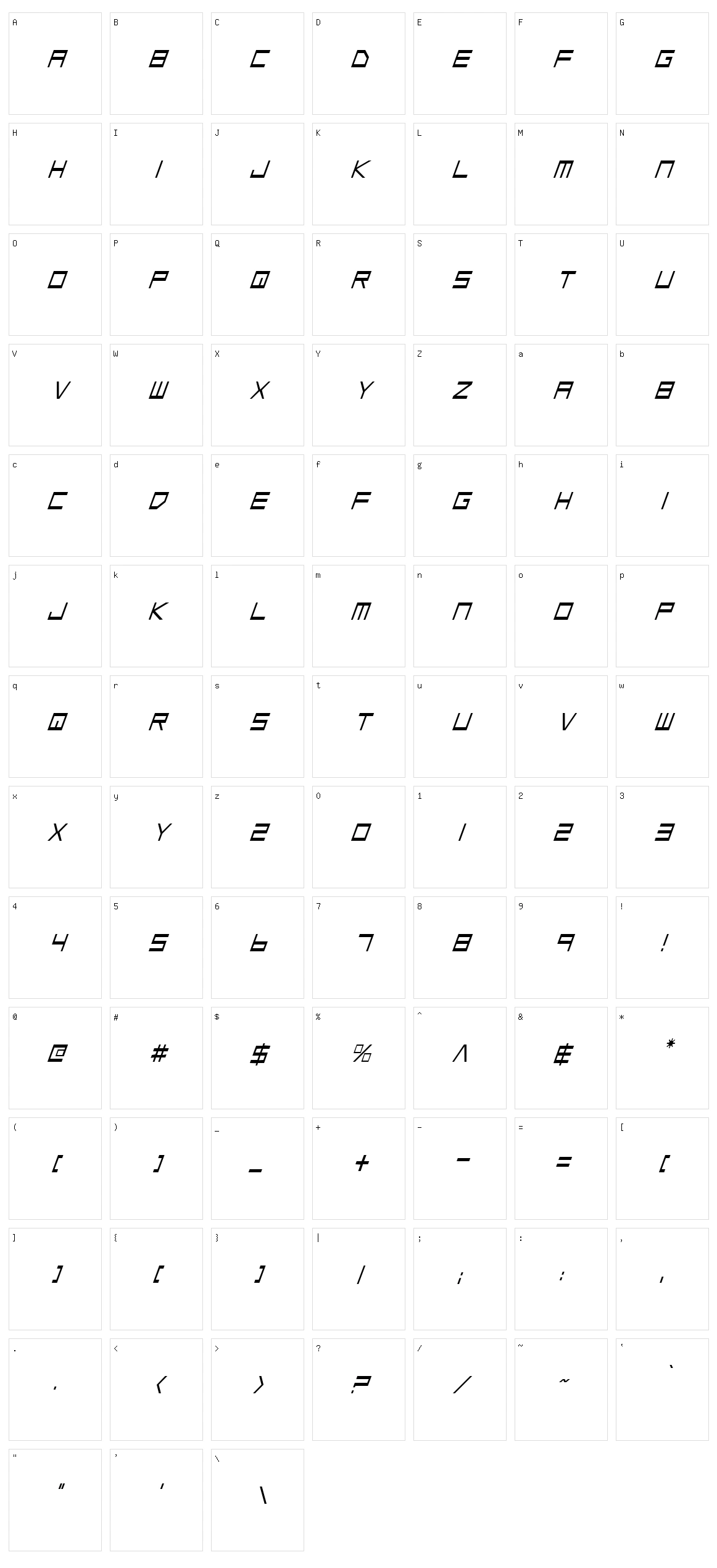
2007 Iconian Fonts - Daniel Zadorozny
This is a screen font. This font comes in 15 versions with full characters- Regular, Bold, Italic, Bold Italic, Condensed, Condensed Italic, Expanded, Expanded Italic, Expanded Bold, Outline, Bold Outline, Outline Italic, Bold Outline Italic and Leftalic.
There are a number of alternate letter forms between the upper and lower cases.